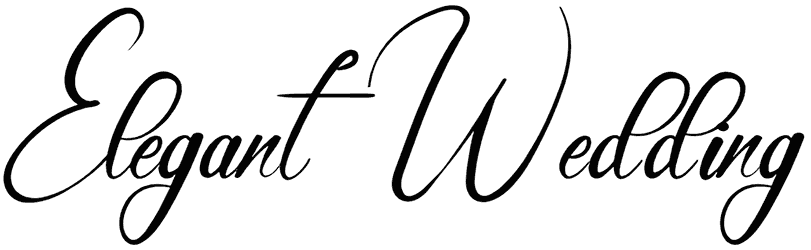
Elegant Wedding Font
For a modern and romantic design, the choice of longhand words can have the best display. This elegant wedding font, with its cheerful and nice face, is able to cause a sweet vibe. With an almost full cover of characters, Elegant Wedding will give you a chance to trim your subsequent designs from Instagram posts to presentations with an amazing mood.
Elegant Wedding is a beautiful and smooth script font, that exudes elegance and class. This font was particularly crafted for those who need a beautiful and refreshing look to their designs.